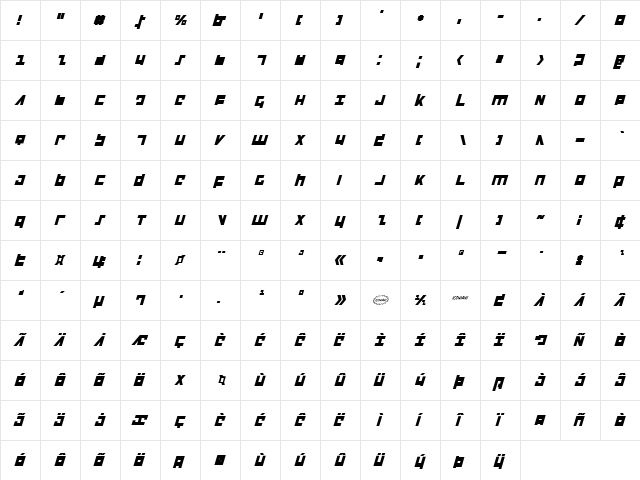
Flight Corps Condensed Italic Font Preview
Design Context for Flight Corps Condensed Italic Typeface
Flight Corps Condensed Italic is a composed and adaptable typeface that performs quietly and consistently across a wide range of design contexts. Its italic angle brings a sense of urgency and motion to the letterforms. Its slender proportions lend an understated elegance to any composition. The condensed width makes it efficient for tight spaces without sacrificing legibility.
Pro Tip: Use Flight Corps Condensed Italic for emphasis, pull quotes, and subheadings where its slanted energy can add rhythm to the layout.